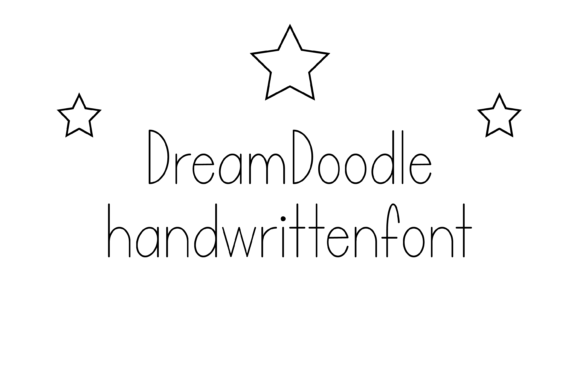
Looking for a font that will add a touch of whimsy and fun to your designs? Look no further than Dreamdoodle Font! Created by Woracado, this script font is simple, friendly, and oh-so-charming. Its hand-drawn style is perfect for a wide range of projects, from logos to wedding invitations to advertisements.
What sets Dreamdoodle apart from other script fonts is its unique personality. It's a bit quirky and whimsical, but still easy to read and understand. When you use Dreamdoodle in your designs, you'll instantly add a touch of playfulness and joy.
And the best part? Dreamdoodle is incredibly versatile. Whether you're designing a print magazine, a website, or a social media post, this font will add a special something that will set your work apart. It's perfect for both personal and professional projects, and will help you create designs that truly stand out.